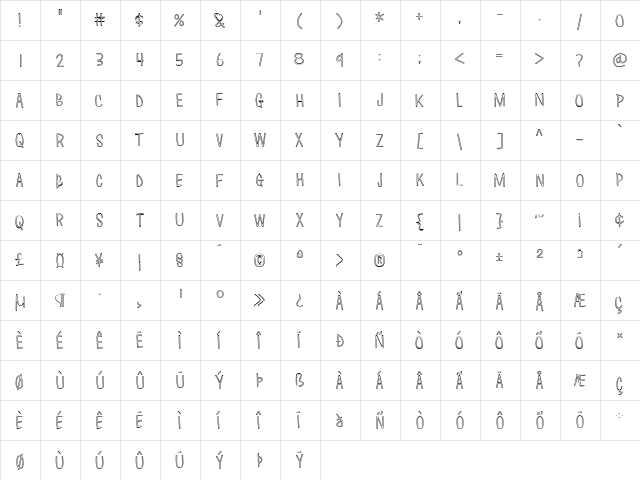
Love Monster Skinny Outline Regular
Design Context for Love Monster Skinny Outline Typeface
Love Monster Skinny Outline is built around its visual character rather than neutral utility — its distinctive forms are designed to make an impression at display sizes.
Font Pairing: Pair with a clean neutral sans-serif for body copy to let Love Monster Skinny Outline's character lead without overwhelming the composition.
Pro Tip: Use Love Monster Skinny Outline exclusively at display sizes — it was designed to be seen, not read at length. Let a neutral companion handle body copy.